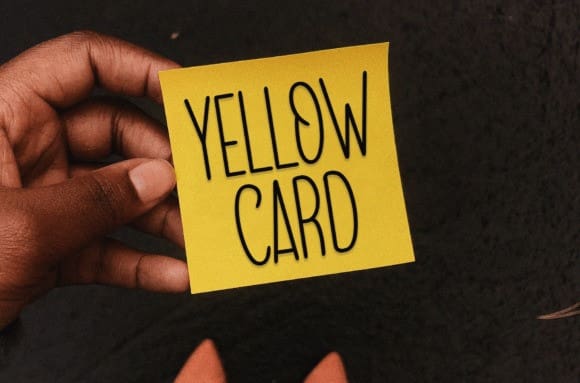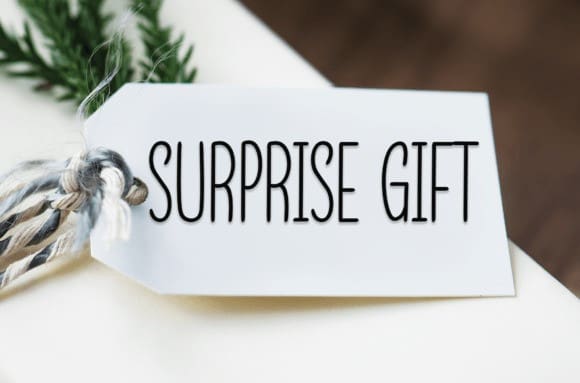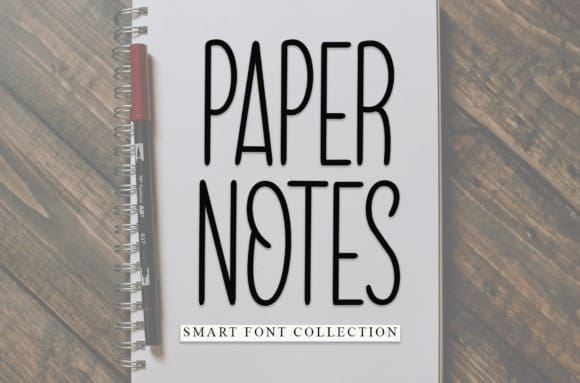
Paper Notes Font
Paper Notes Font is a sweet and friendly handwritten font. Fresh and casual, this font is ideal for writing wedding invitations, cards, or any other design that might need a lovely touch.